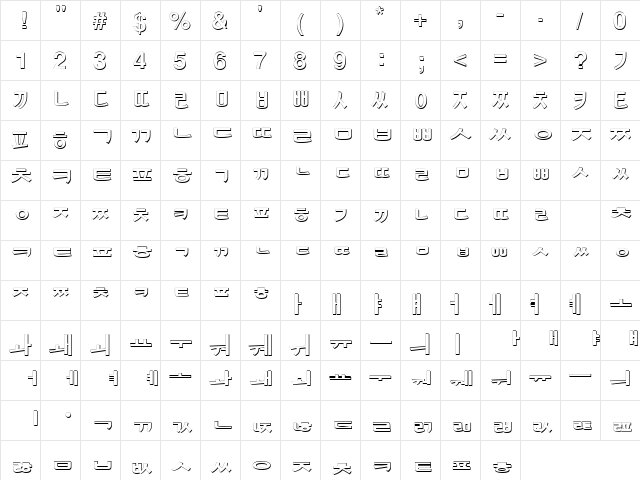
KoreanShadowSSK Regular Font Preview
KoreanShadowSSK Regular
Design Context for KoreanShadowSSK Typeface
KoreanShadowSSK is built around its visual character rather than neutral utility — its distinctive forms are designed to make an impression at display sizes.
Font Pairing: Pair with a clean neutral sans-serif for body copy to let KoreanShadowSSK's character lead without overwhelming the composition.
Pro Tip: Use KoreanShadowSSK exclusively at display sizes — it was designed to be seen, not read at length. Let a neutral companion handle body copy.